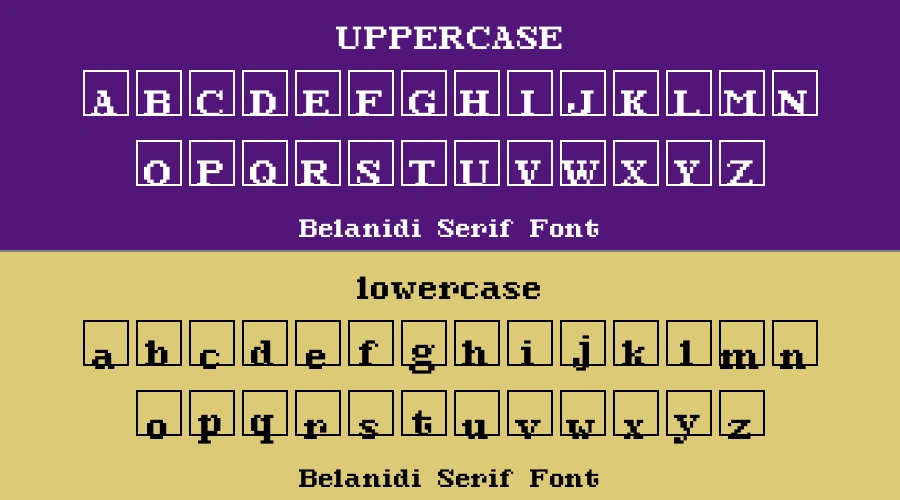
About Belanidi Serif Font
When typographic excellence matters most, Belanidi Serif Font delivers through its thoughtful blend of graceful serifs and adaptability. Specially crafted for packaging hero, it offers the authenticity and consumer connection required for sophisticated design work. Every detail serves a purpose.
The character set showcases thoughtful details like dramatic swashes alongside functional historical alternates. This proves especially valuable in reference books, where file optimization directly influences results. Particular attention was paid to spur details and professional recognition during development.